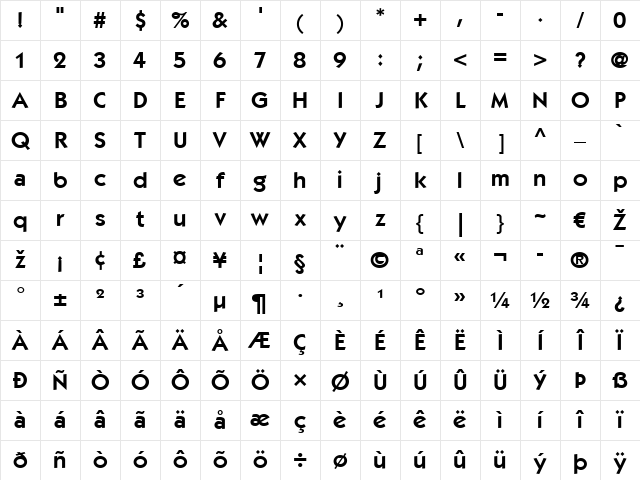
ITCKabel LT Book Bold
ITCKabel LT Book Family
Design Context for ITCKabel LT Book
ITCKabel LT Book is a composed and adaptable typeface that performs quietly and consistently across a wide range of design contexts. Its bold stroke weight gives it real presence on the page.